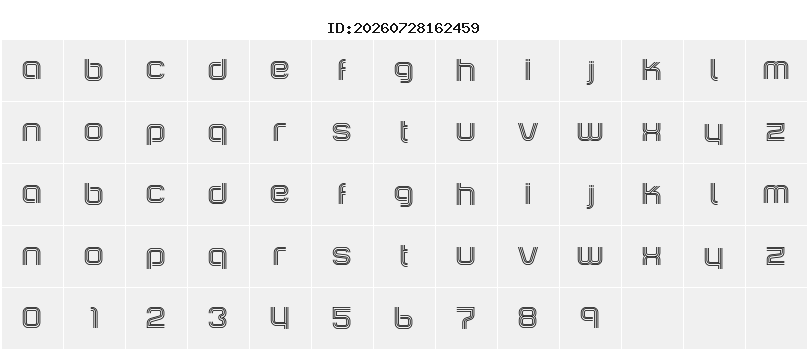
Incopins Clusters Preview
• Font Name: Incopins Clusters
• Designer: Peter Wiegel
• Manufacturer: Peter Wiegel
About Incopins Clusters.ttf
Incopins Clusters.ttf is a modern, elegant sans-serif font designed for ultimate readability and visual harmony. Perfect for branding, headlines, web design, and print materials.